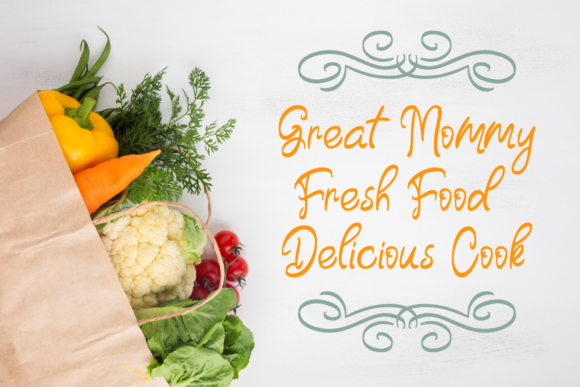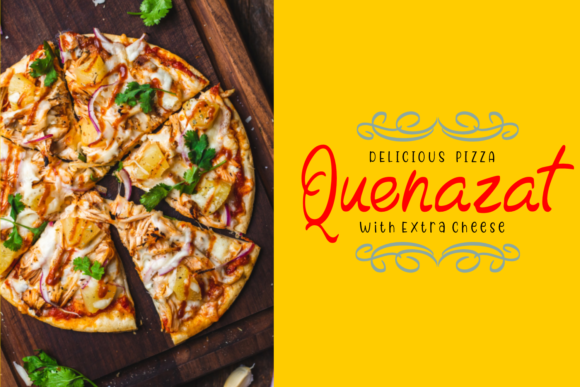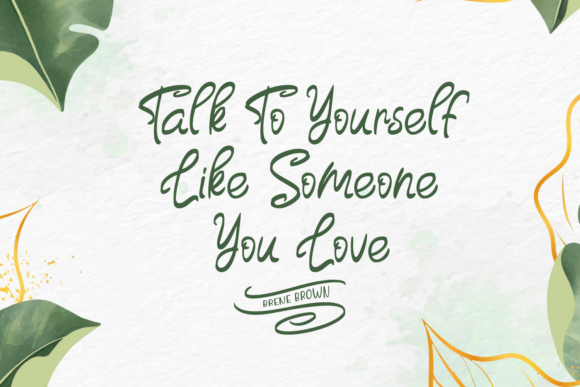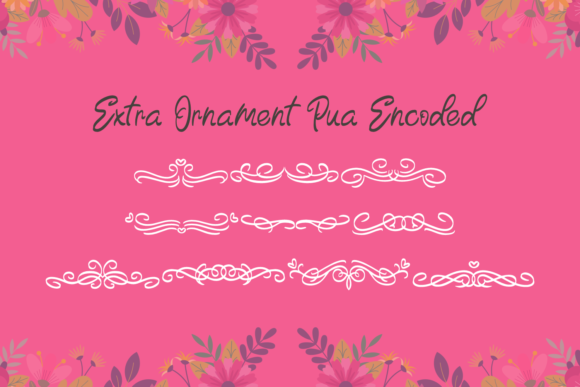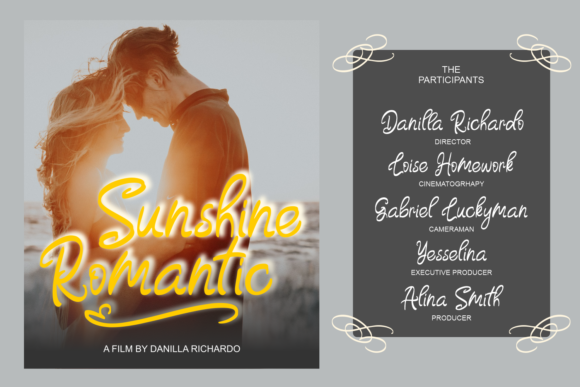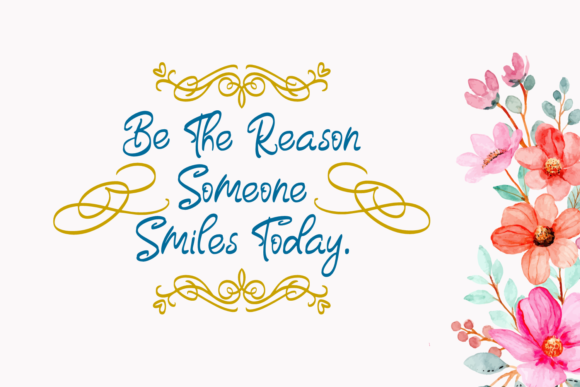
Before Sunday Font
About Before Sunday Font
Before Sunday is a flowing handwritten font, described by an elegant touch, perfect for your favorite projects. Fall in love with its incredibly distinct and timeless style and use it to create spectacular designs!